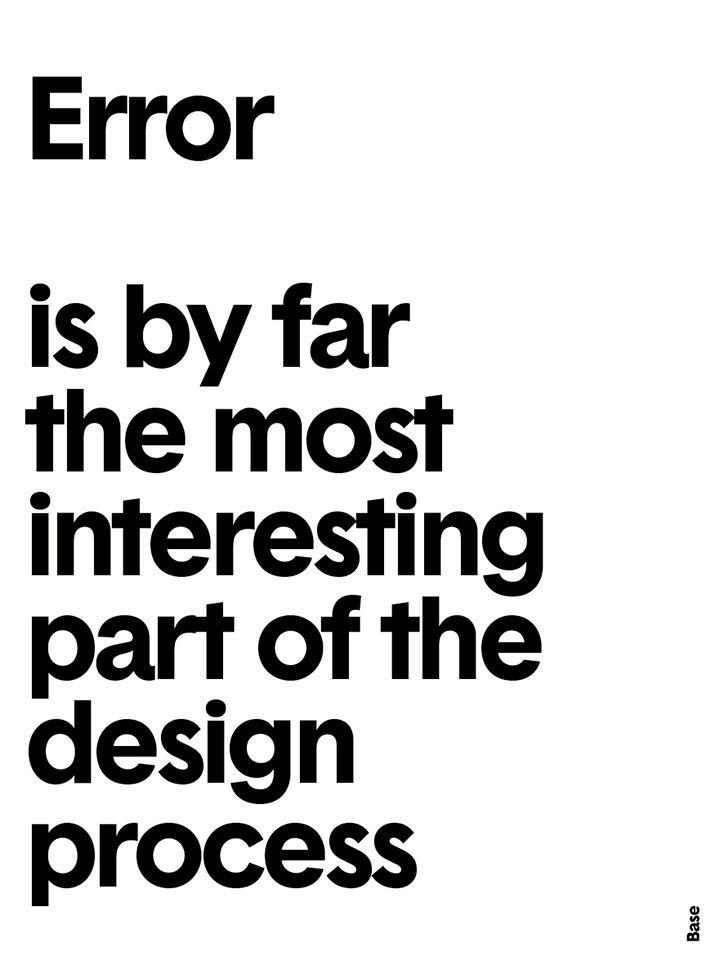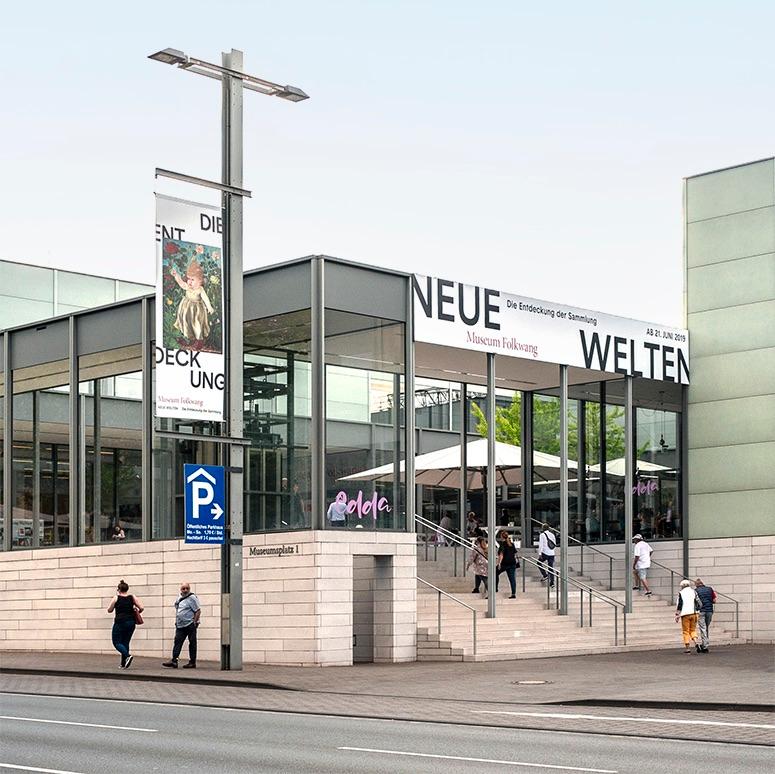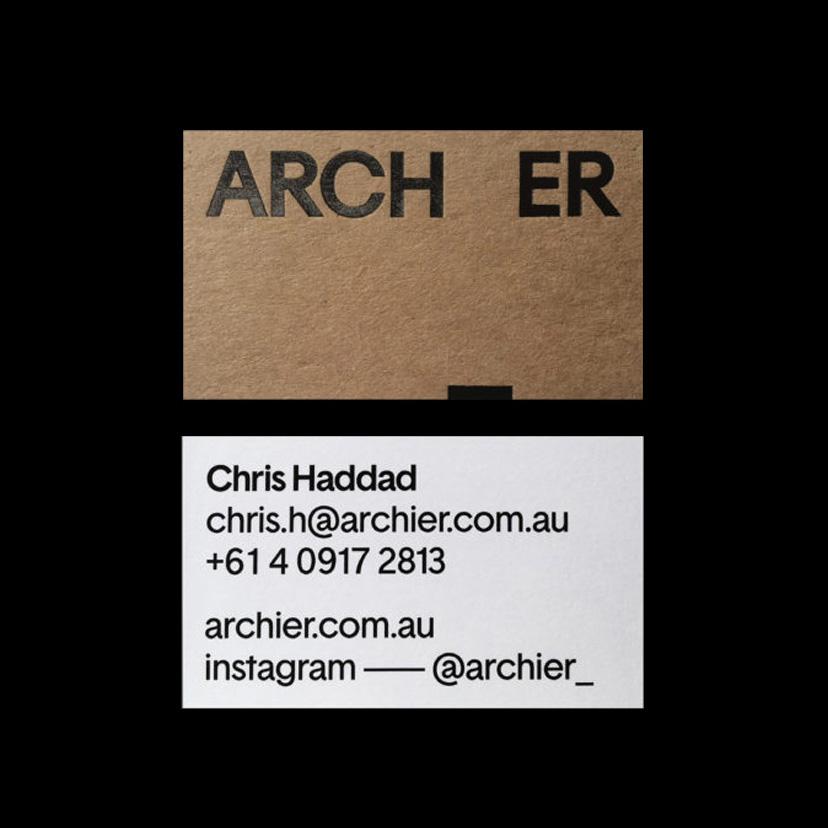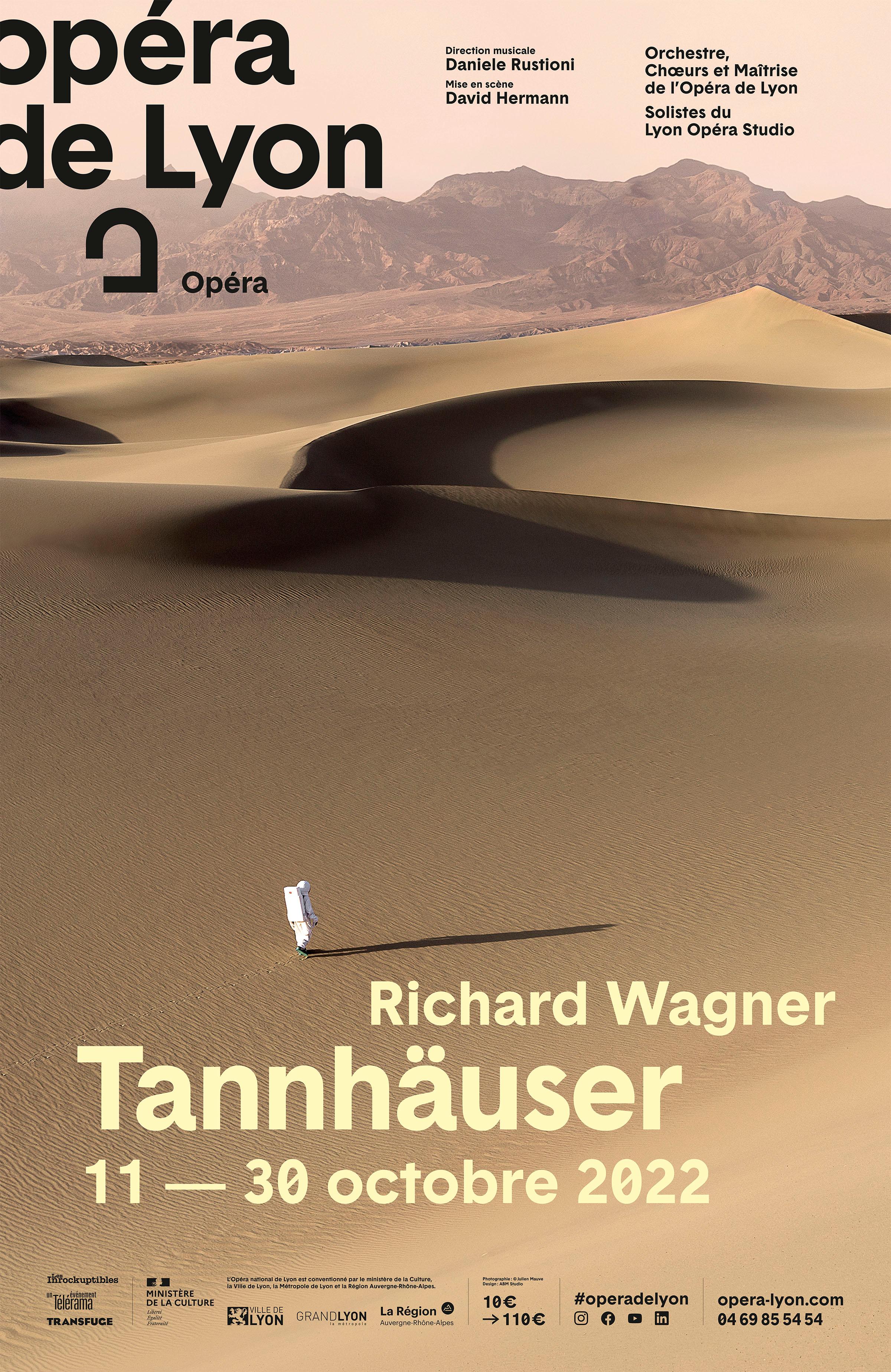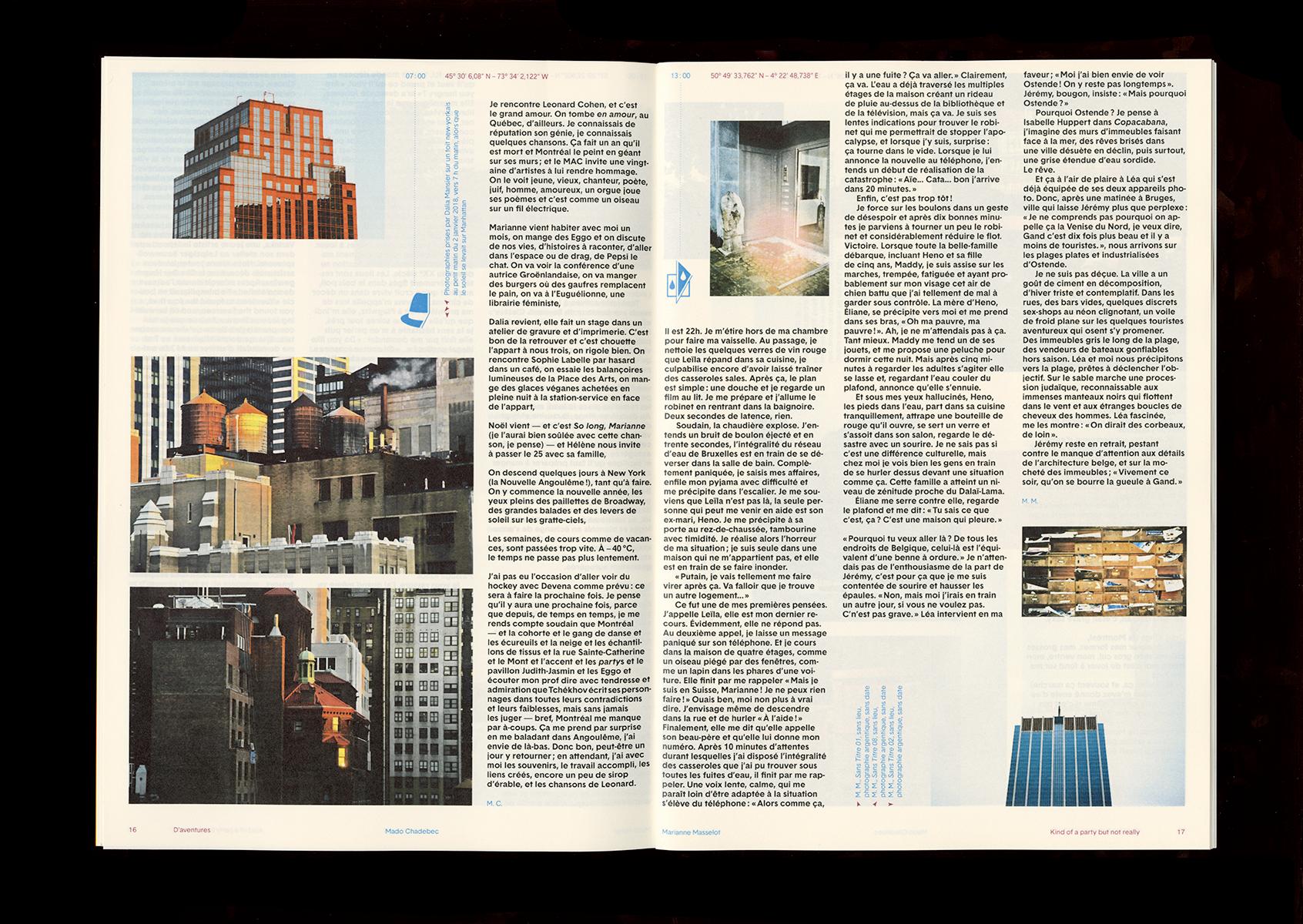
Matthieu Cortat created Basetica for the studio GVA (Geneva), in the context of the Open Switzerland project, on the occasion of its attachment to the Base group, bringing together 3 agencies in Europe (Brussels) and America (New York).
GVA wished to show its attachment to “Swiss Graphic Design” and what it carries in terms of quality, precision and rigour, while at the same time presenting a Switzerland quite different to the usual stereotypes that one can imagine.
Basetica is then, a “contemporary Helvetica”, open and with no frills.
Raw at times, but always clean and discreet, it revisits the “International Swiss Style” with a certain irony.